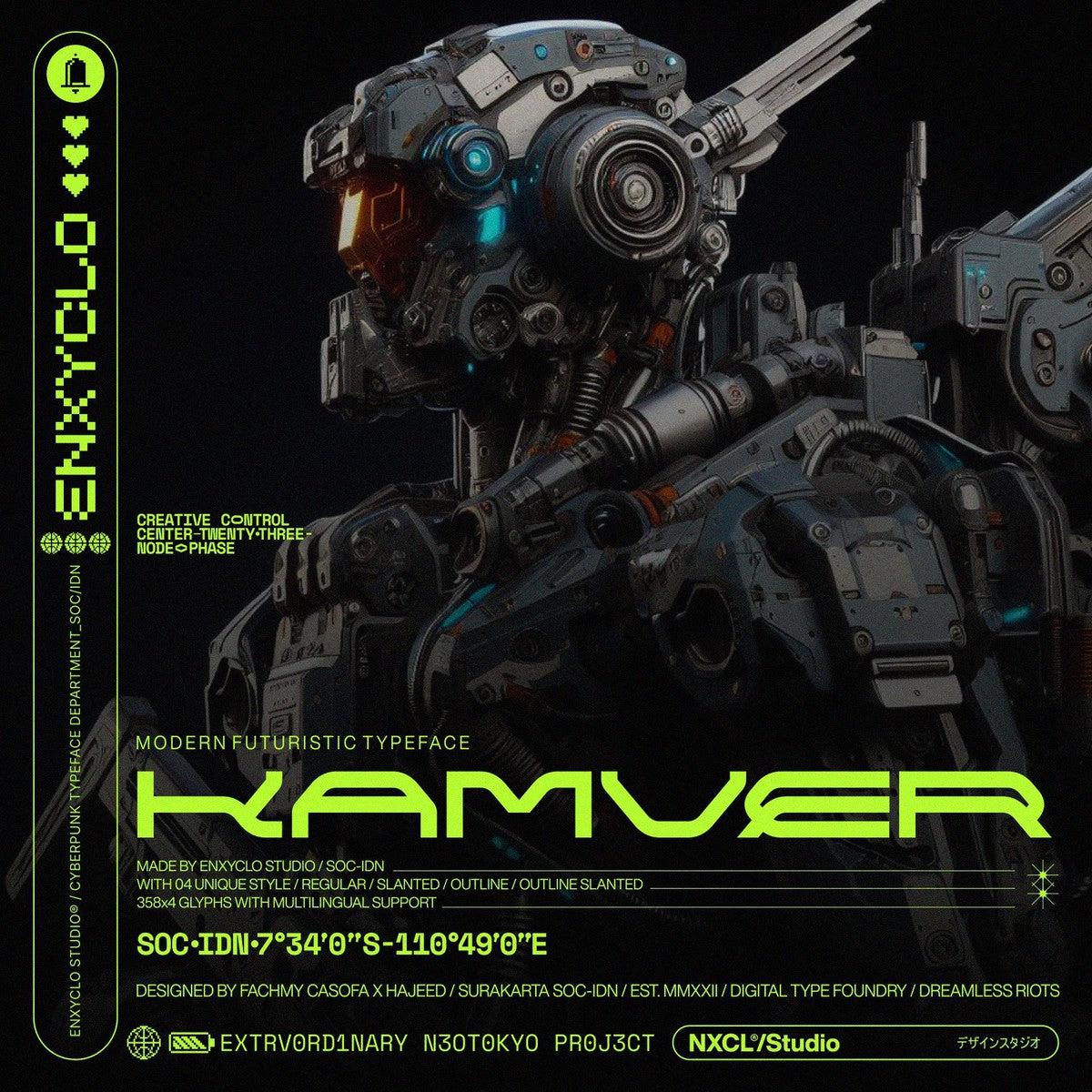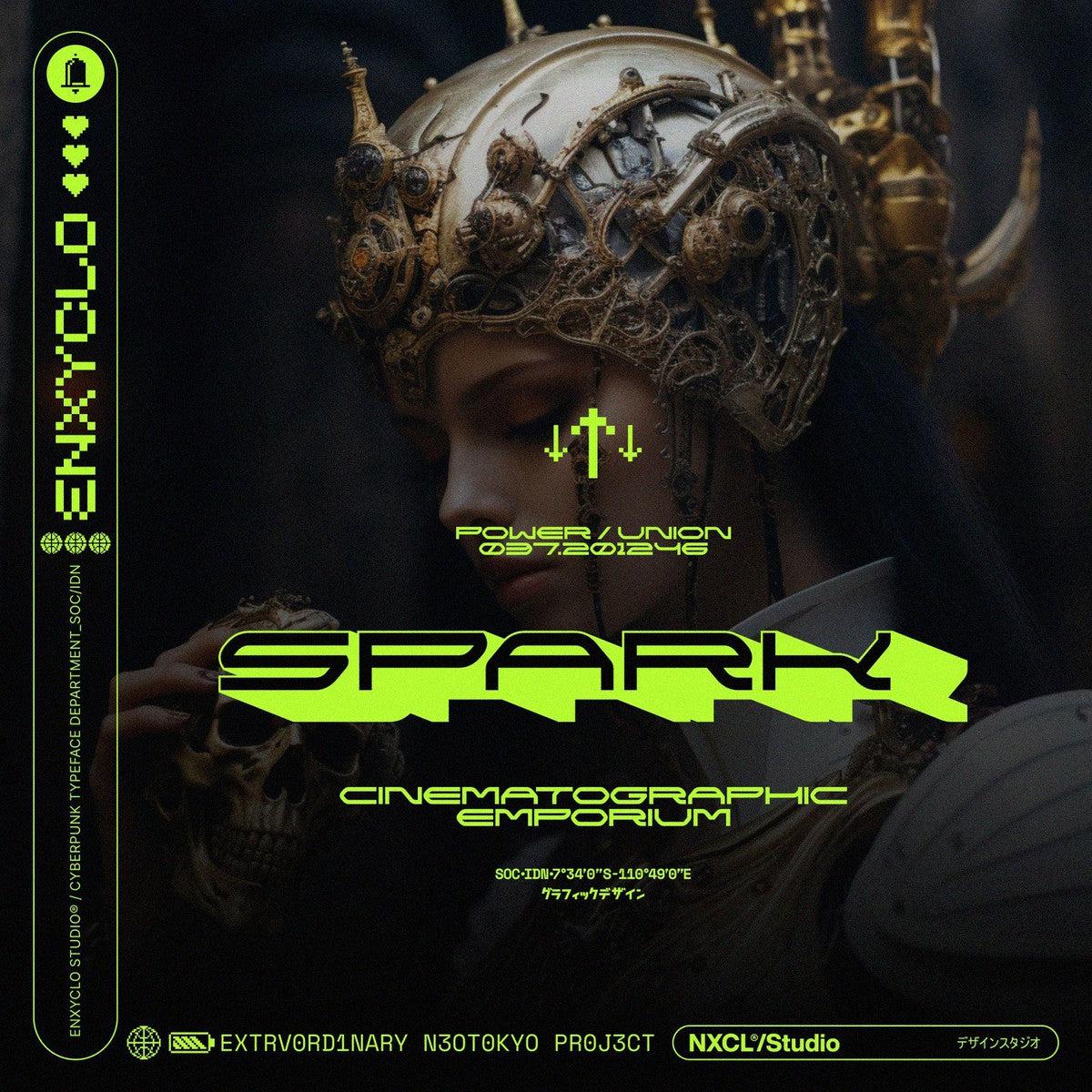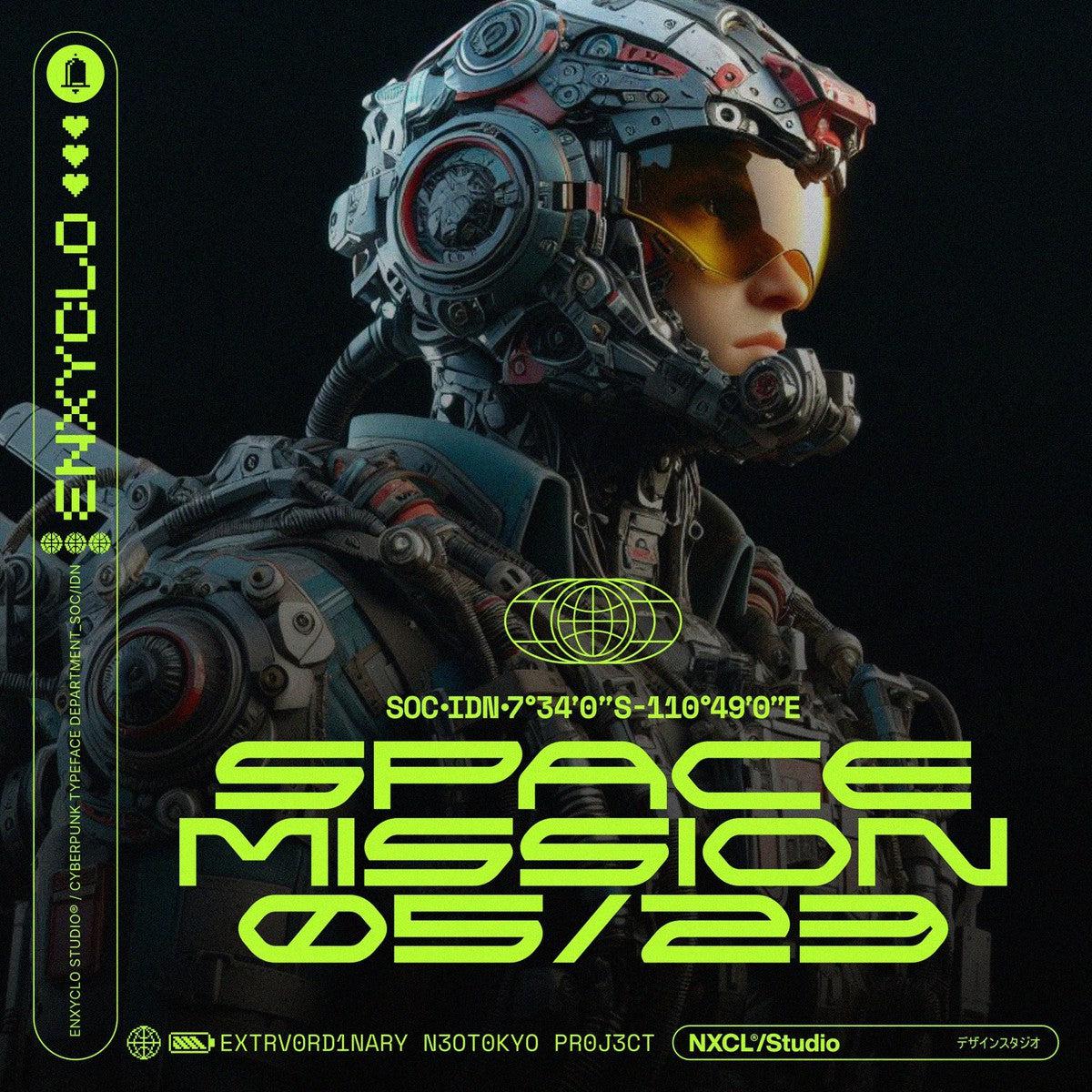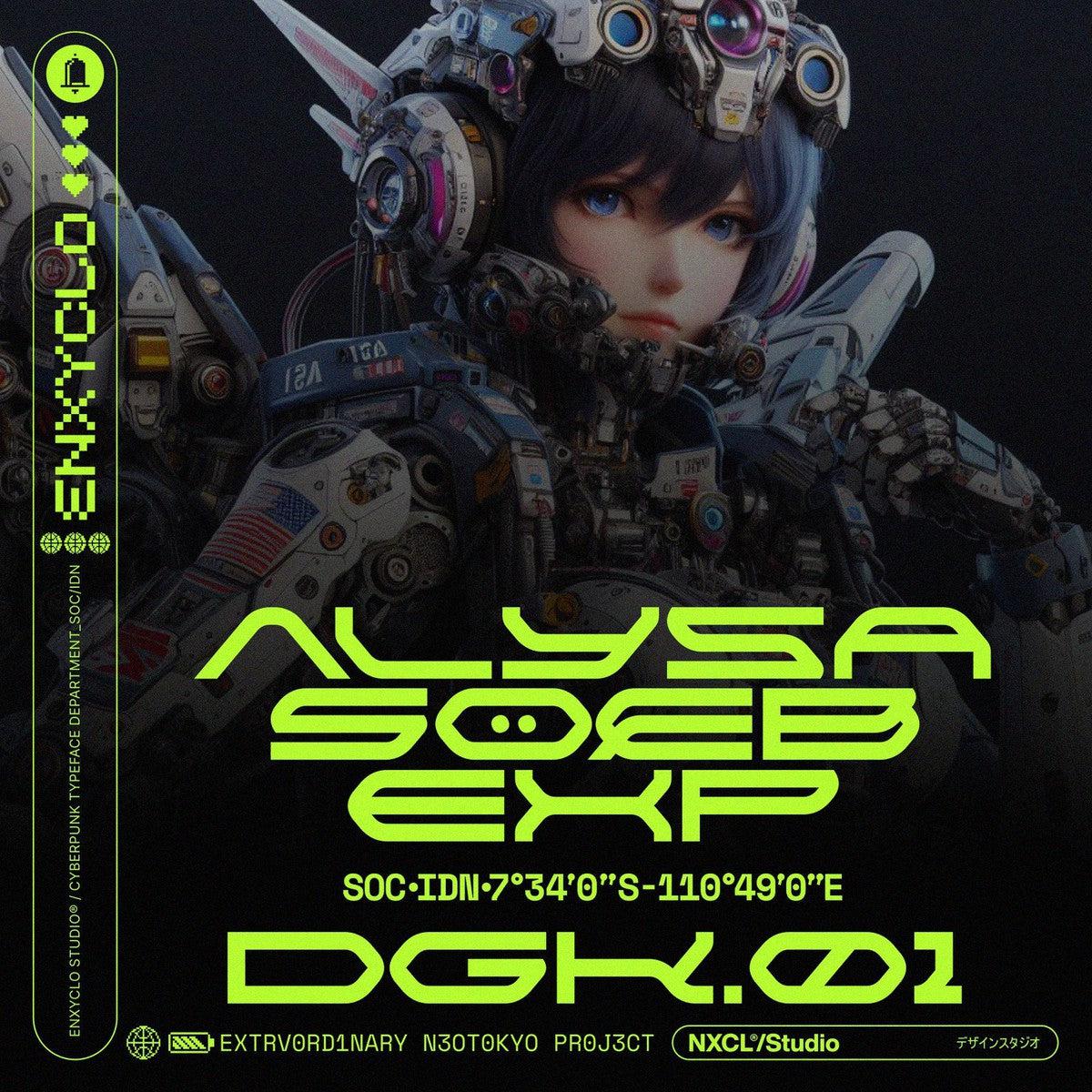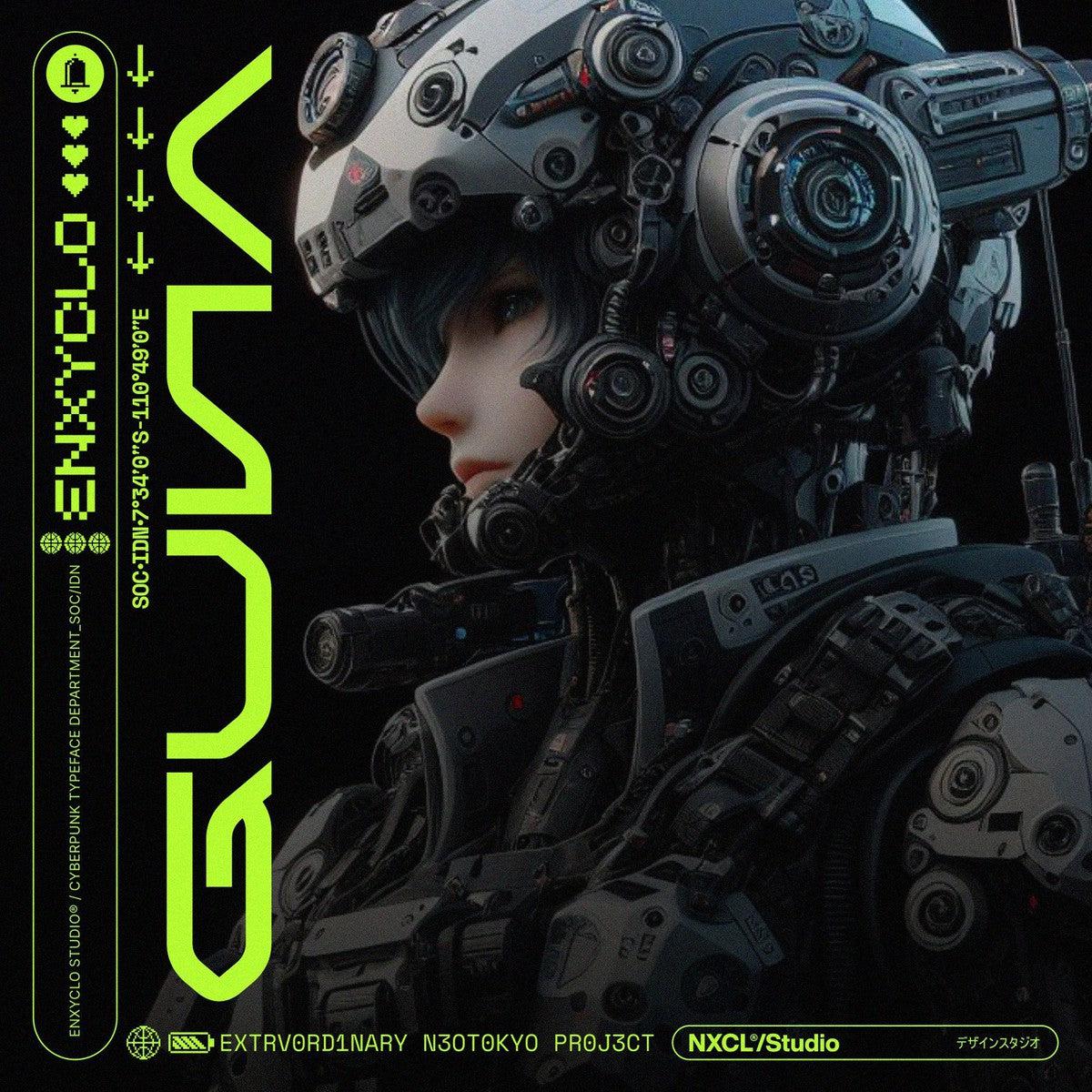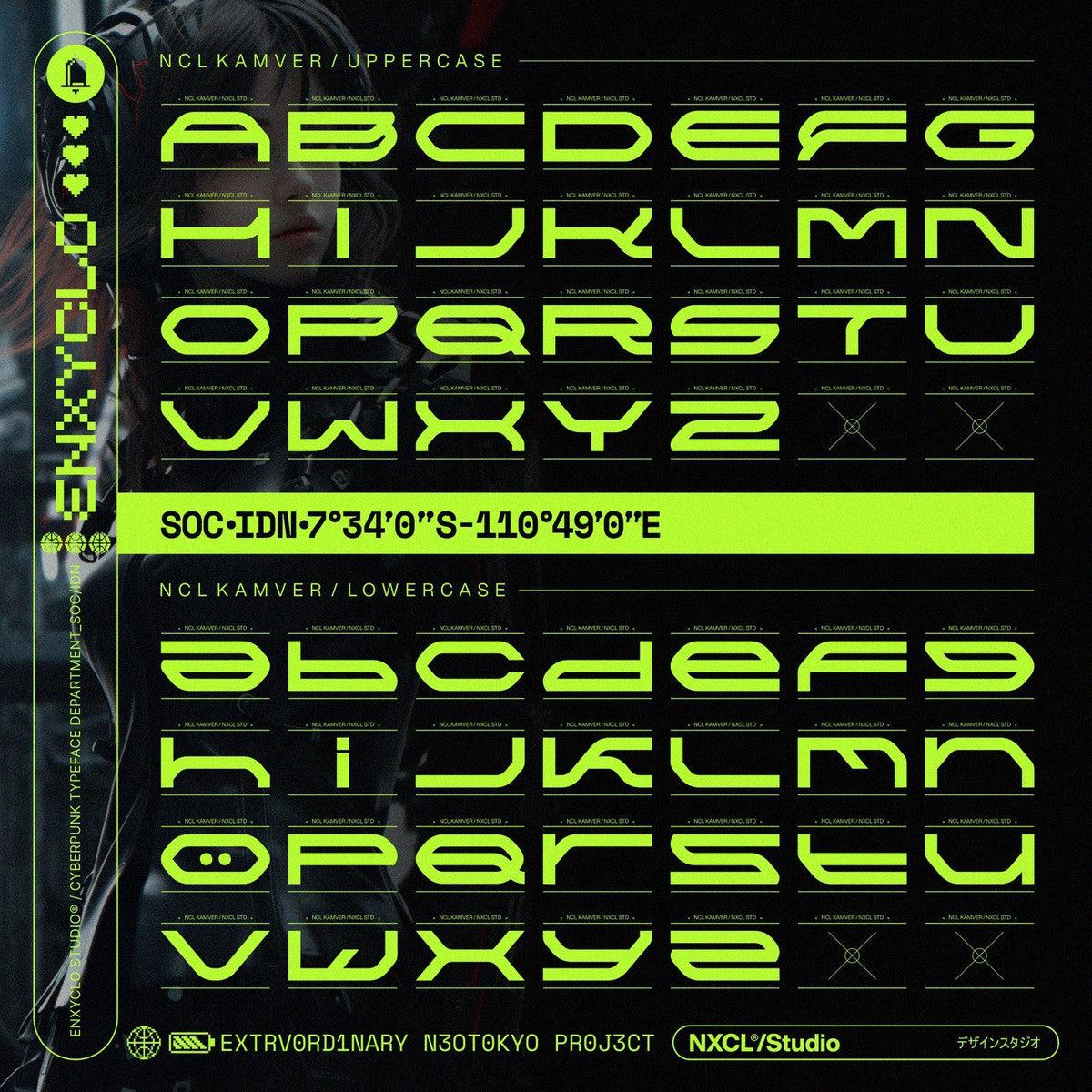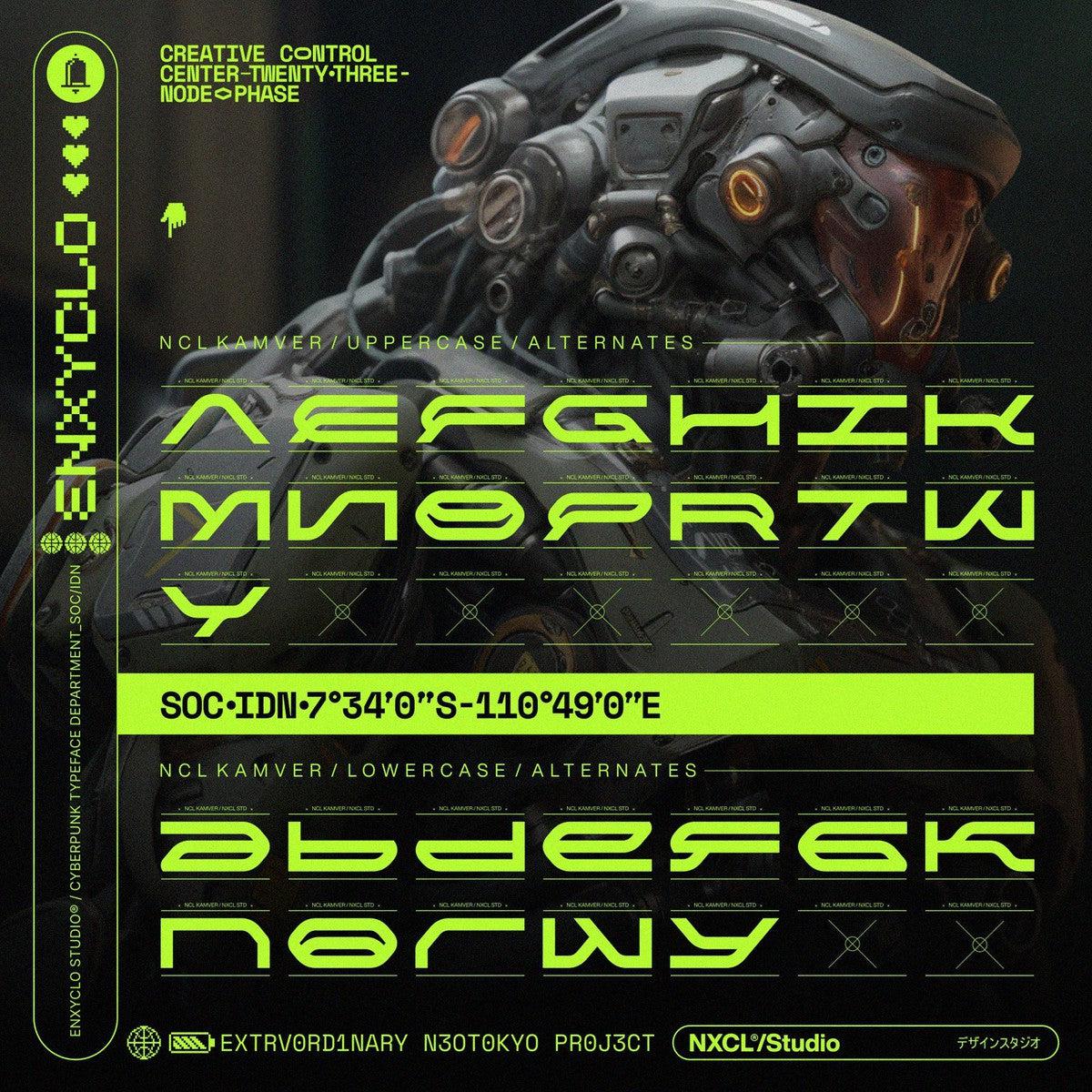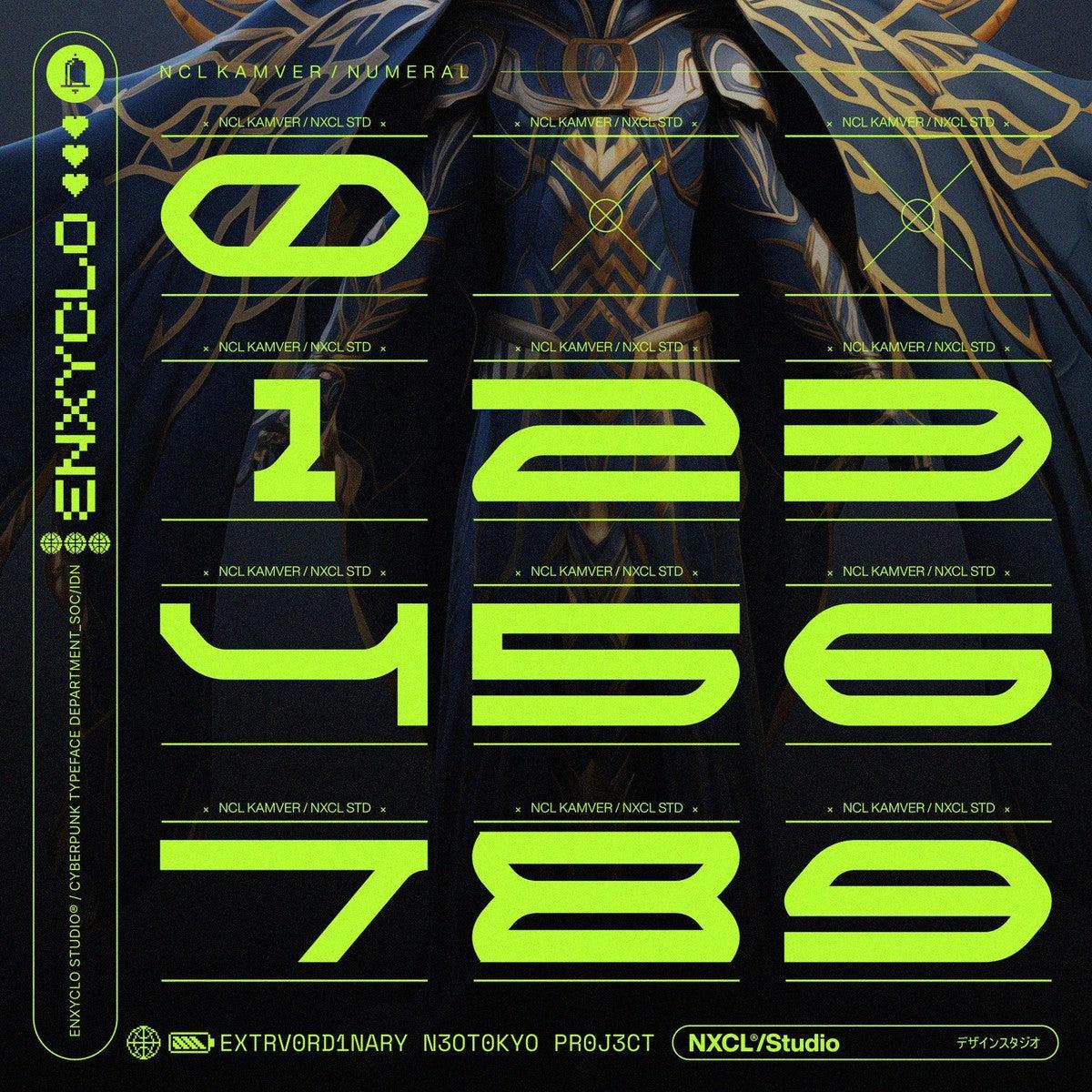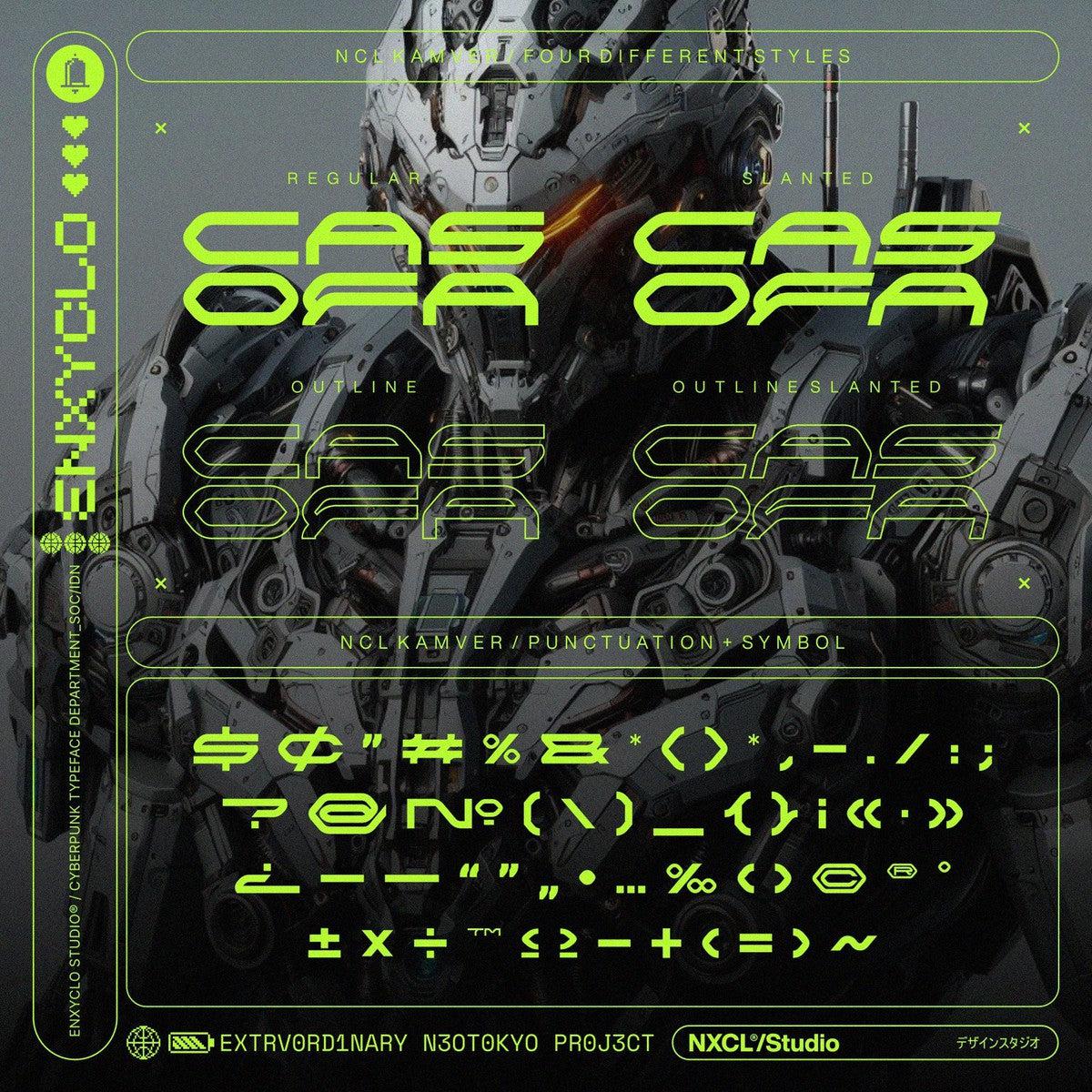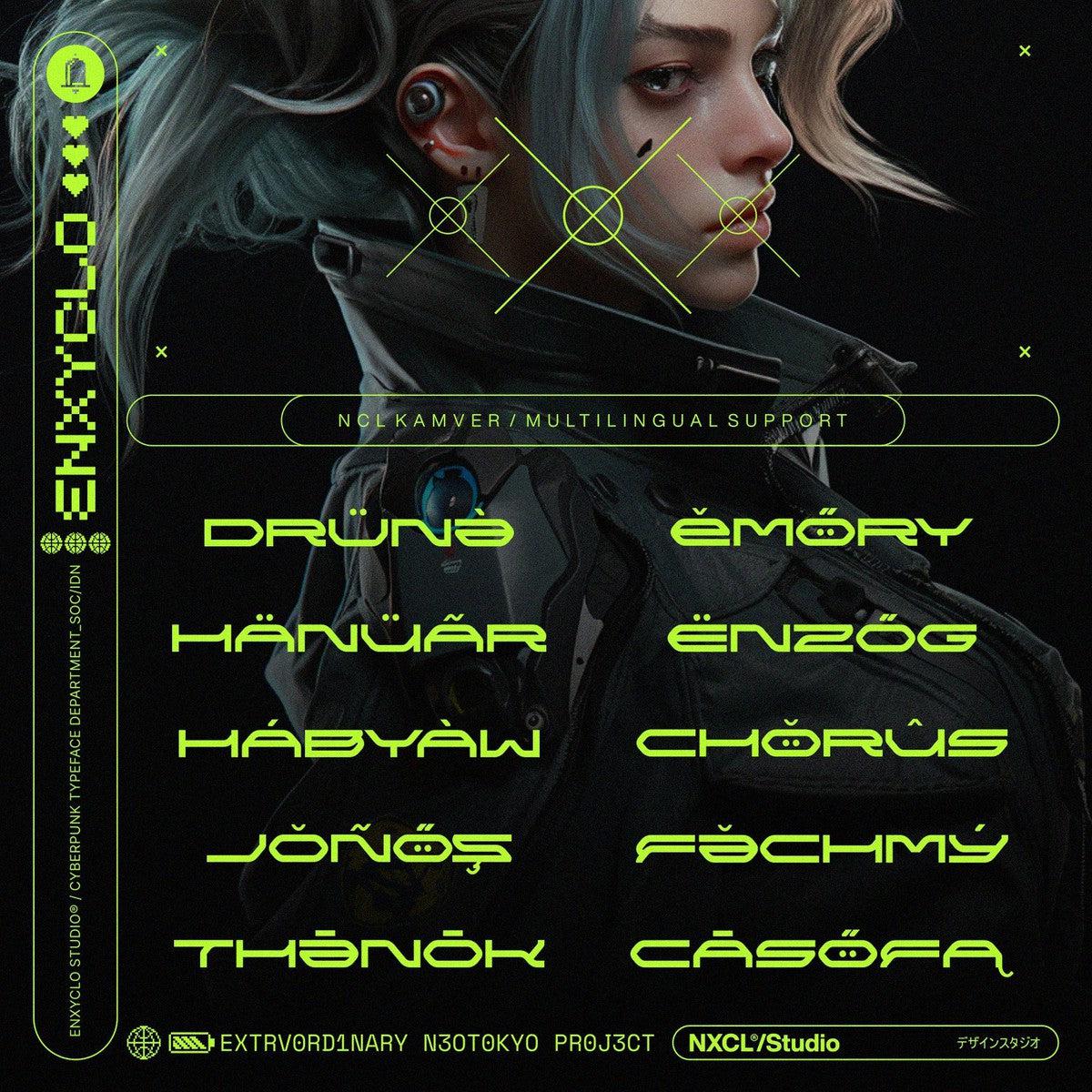
KAMVER
The NCL Kamver is a futuristic cyberpunk space techno font, offering a modern aesthetic for design projects. It comes in four styles: Regular, Slanted, Outline, and Outline Slanted, and includes 358 glyphs, uppercase and lowercase letters, numerals, punctuation, symbols, alternates, and multilingual support. The font is available in True Type Font (TTF), Open Type Font (OTF), and Web Open Font Format (WOFF1 & WOFF2).
Ideal for modern cyberpunk and futuristic design projects. Perfect for websites, posters, logos, and branding materials, ensuring a distinctive and innovative visual impact.